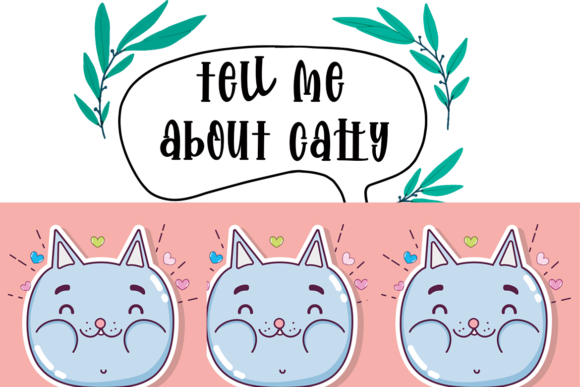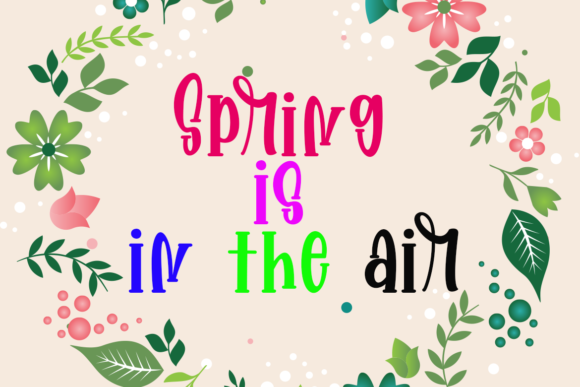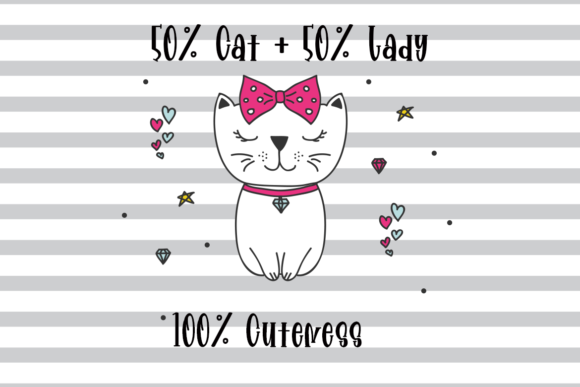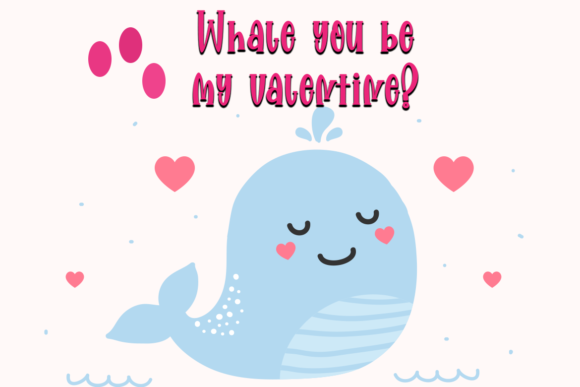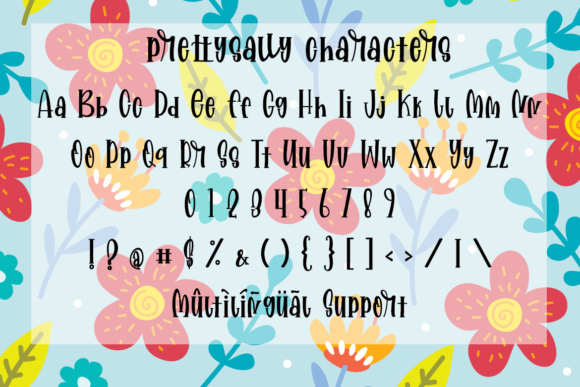
Introduction to Prettysally Font
Prettysally is a quirky and whimsical handwritten font with a unique style.
Get creative with its unique playfulness, and use it to brighten up all your upcoming projects .
Key Features of Prettysally Font
Why Choose Prettysally Font?
Prettysally Font offers exceptional quality and versatility, making it a valuable addition to your design toolkit. Whether you’re creating for personal projects or commercial use, Prettysally Font delivers professional results.